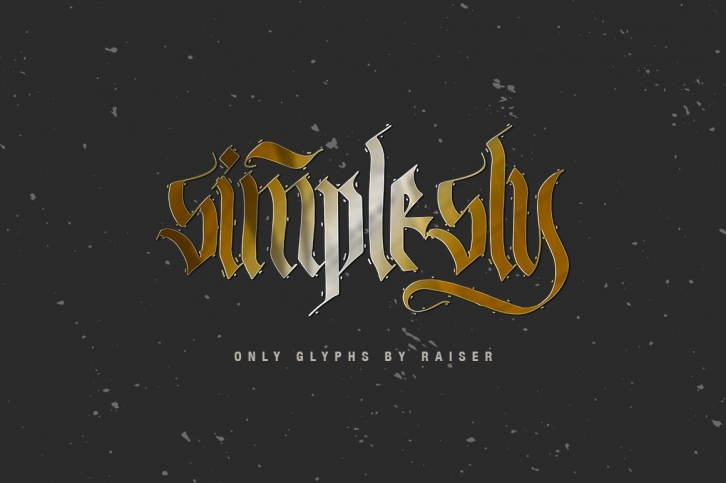
Simplesly is a gorgeous font that was realeased on September 28, 2021. The font can be used in many style contexts and design environments. Perfect for invitations, magazines, websites, logos, and more! It was designed by AllisonSuns and the file size is 21.98 MB. Thanks for checking out this font!